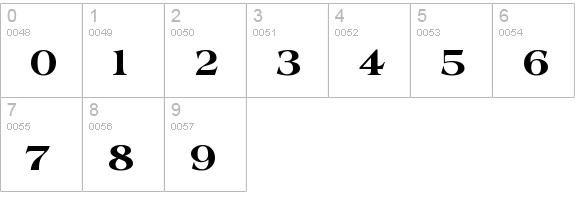
American Classic Extra Bold Font Details
American Classic Extra Bold is a strong, high-contrast variant in the American typeface family \xE2\x80\x94 well suited to headlines, attention-grabbing titles, and strong calls-to-action.
American Classic Extra Bold font is a timeless typeface that exudes strength and confidence. Its bold and impactful letterforms make a bold statement in any design project. With its classic and versatile appeal, this font is ideal for headlines, titles, and branding materials. The sharp angles and clean lines of American Classic Extra Bold give it a modern edge while still maintaining a sense of traditional elegance. The best part is, American Classic Extra Bold font is available for free download at FontsMarket.com. You can easily access this high-quality typeface and enhance your design projects with its bold and striking presence. Whether you're working on a poster, logo, or website design, American Classic Extra Bold font will add a touch of sophistication and style to your work. Download it today and elevate your designs with this classic and impactful font.